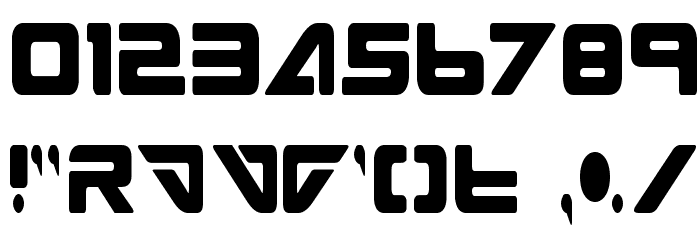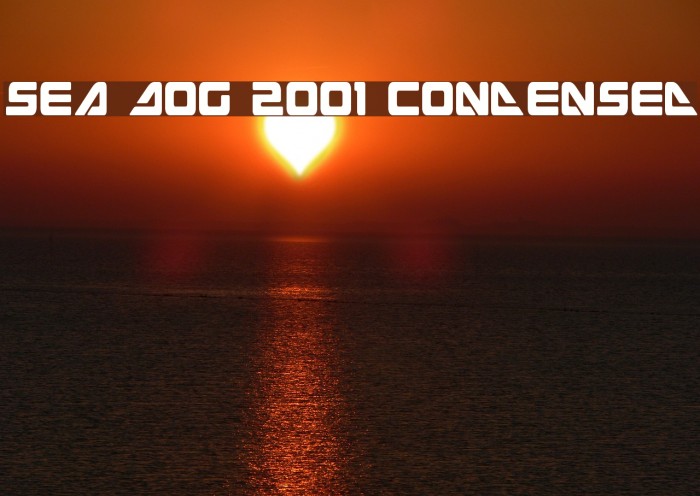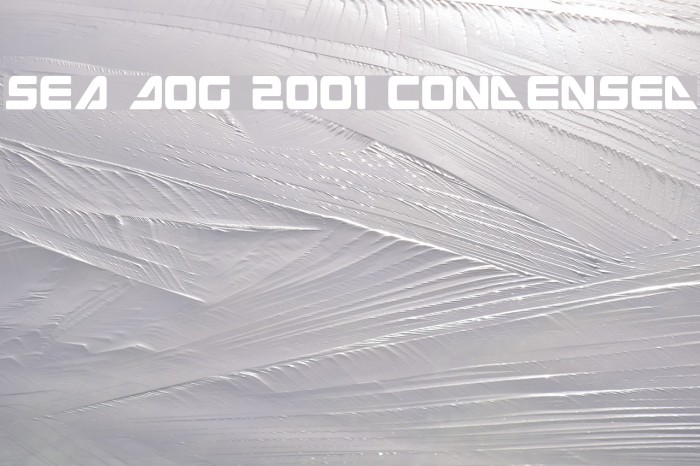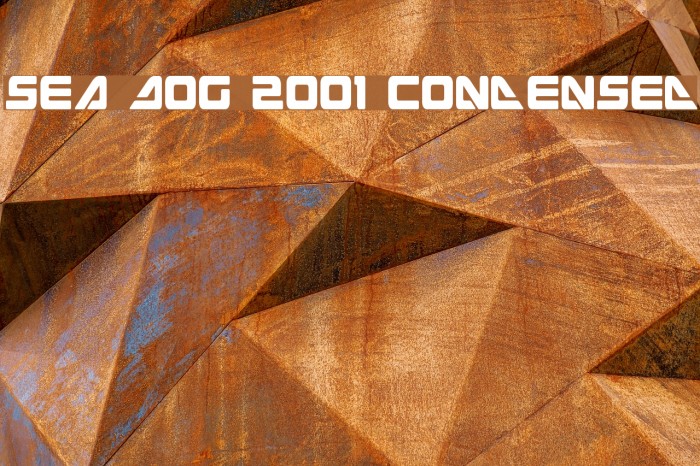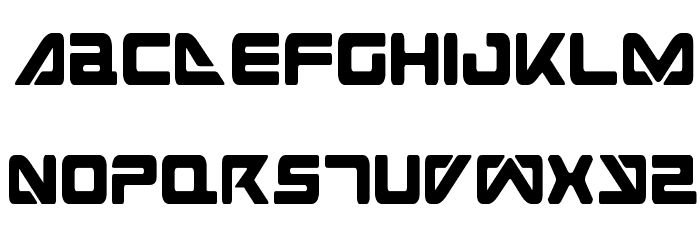
Sea Dog 2001 Condensed Font
Sea Dog 2001 Condensed Description
This font features a futuristic and geometric design with bold, angular shapes. The characters are condensed, giving a compact and streamlined appearance. The uppercase letters have a strong presence with sharp edges and unique cutouts, creating a dynamic and modern look. The lowercase letters maintain the same bold style, ensuring consistency across the typeface. Numbers and special characters are designed to match the overall aesthetic, making this font suitable for projects that require a contemporary and edgy feel.
| Proposed Projects | Ideal for sci-fi themed designs, technology branding, video game titles, and modern advertising. |